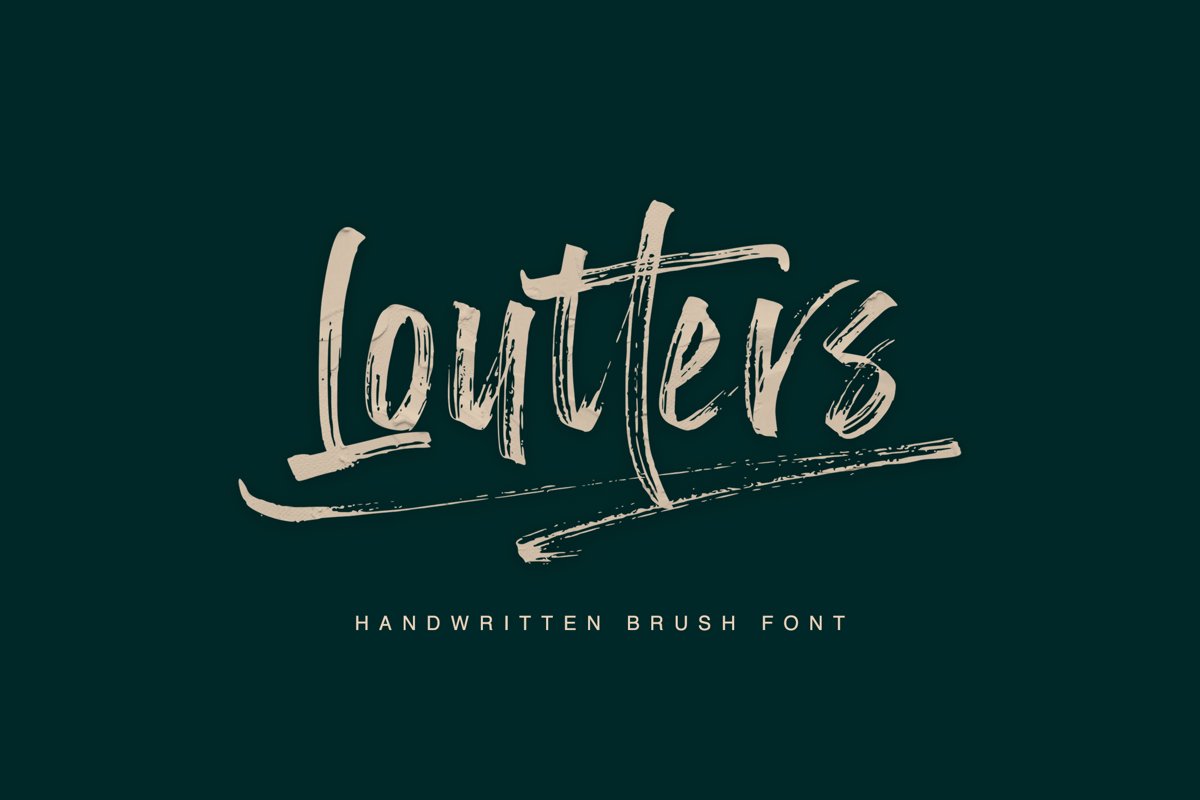
Loutters | Handwritten Brush Font
Loutters
Loutters Slant
Loutters, a very prominent and eye catching handwriting. With a fast and textured sweep style, Loutters are very easy to use for a variety of design needs such as logos, brands, packaging, book titles, etc., and are suitable for use in any background image.
3. Loutters Swash (Swash access using the uppercase or lowercase A-Z)
in it also comes with opentype features, namely ligature and stylistic alternates both upper and lower case letters. Imagine with a Loutters!